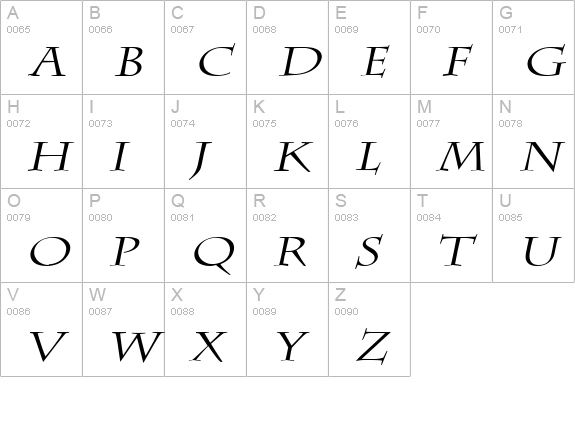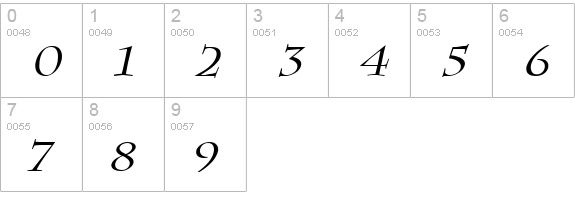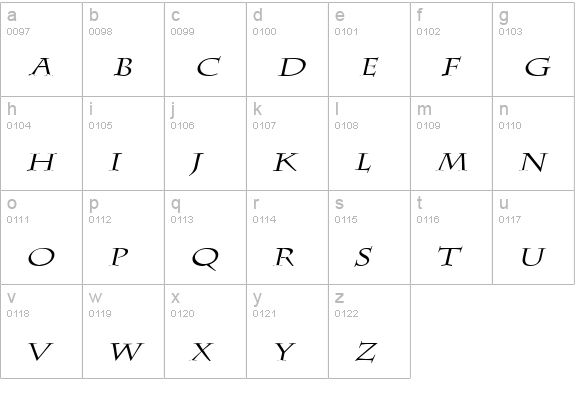
Chaz Wide Italic is a distinctive, extended-width, italic variant in the Chaz typeface family \xE2\x80\x94 well suited to design and typography projects.
Chaz Wide Italic font is a sleek and modern typeface that exudes sophistication and elegance. Its italicized design adds a touch of flair and style to any project, making it perfect for creating eye-catching headings or accentuating important text. The wide letterforms provide a sense of openness and spaciousness, making this font ideal for designs that require a bold and impactful look. Best of all, Chaz Wide Italic font is available for free download at FontsMarket.com, allowing you to effortlessly incorporate this stunning typeface into your design projects without any cost. Whether you're working on a branding project, website design, or print materials, Chaz Wide Italic font is sure to elevate your work with its distinctive and contemporary look. Download it today and add a touch of sophistication to your designs!